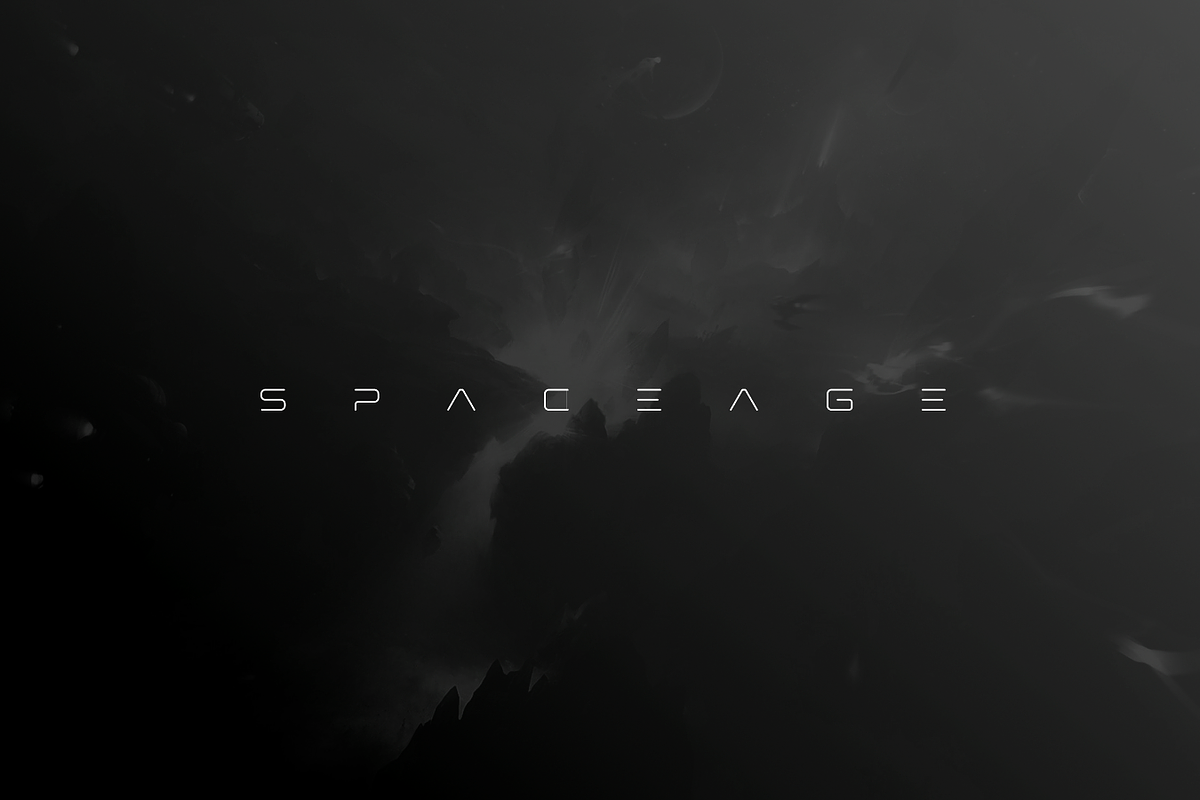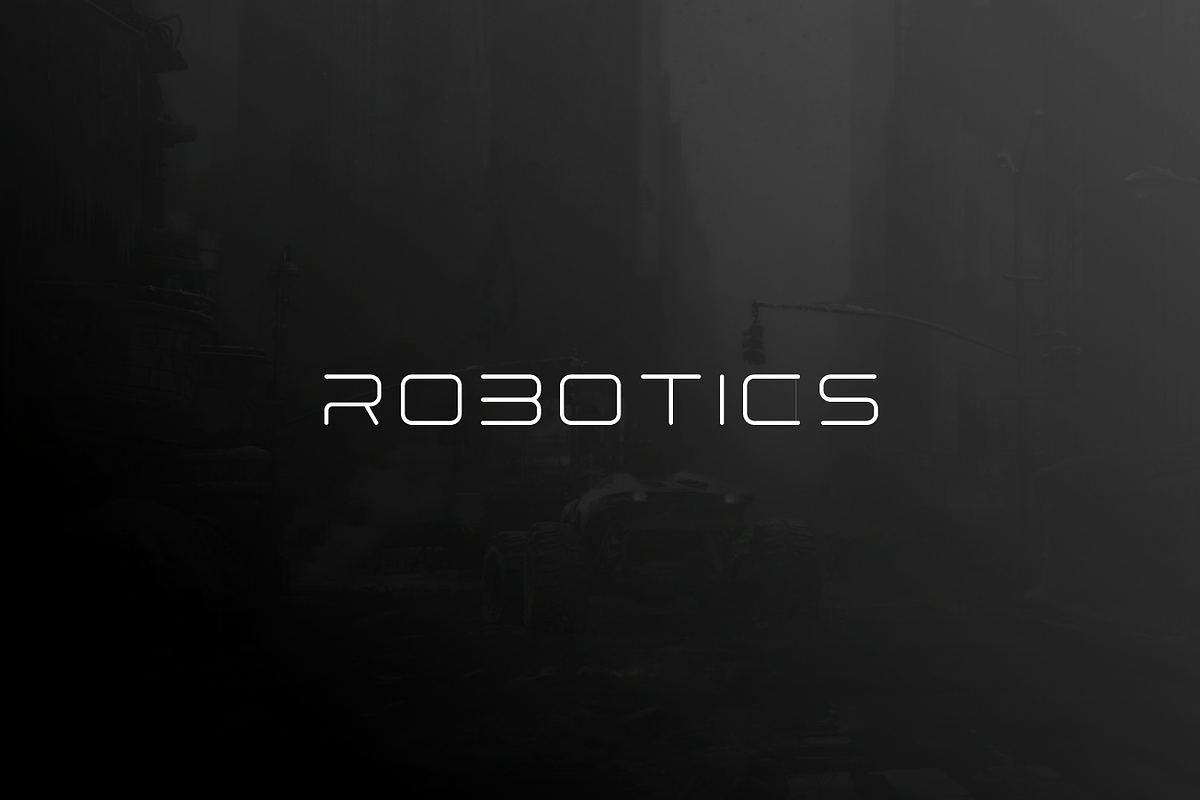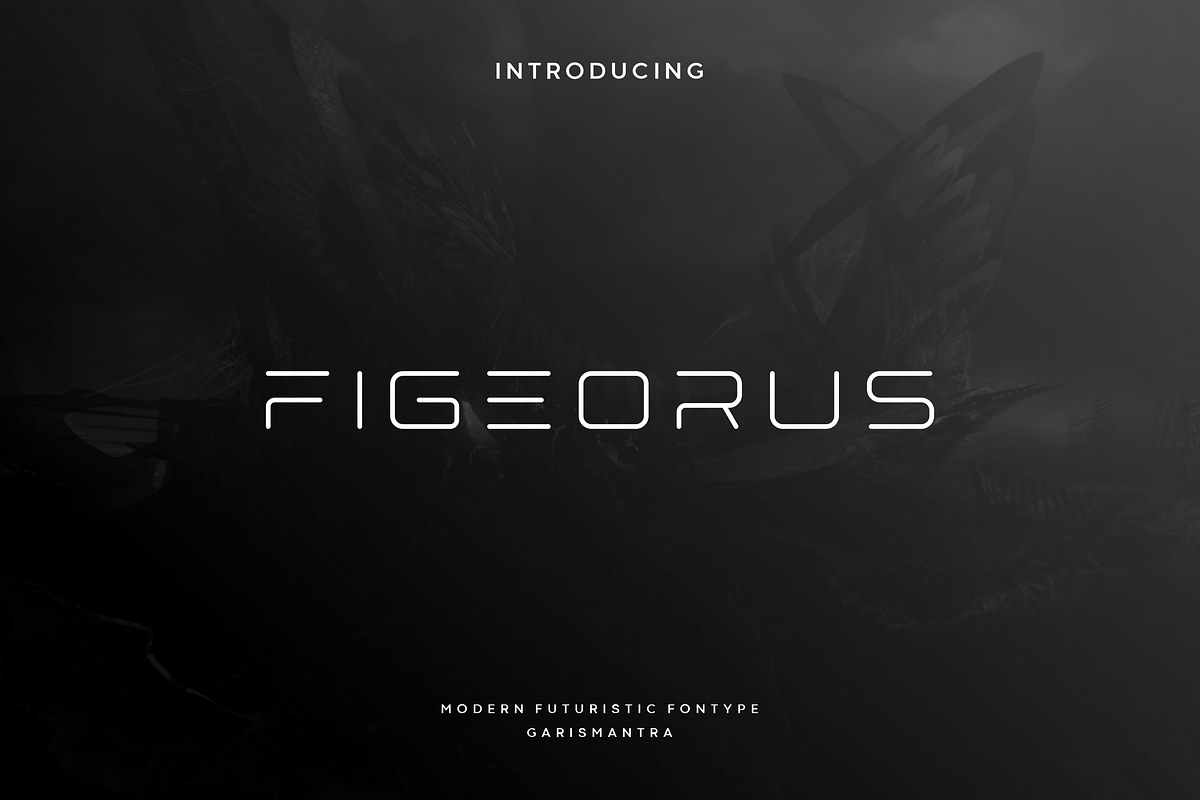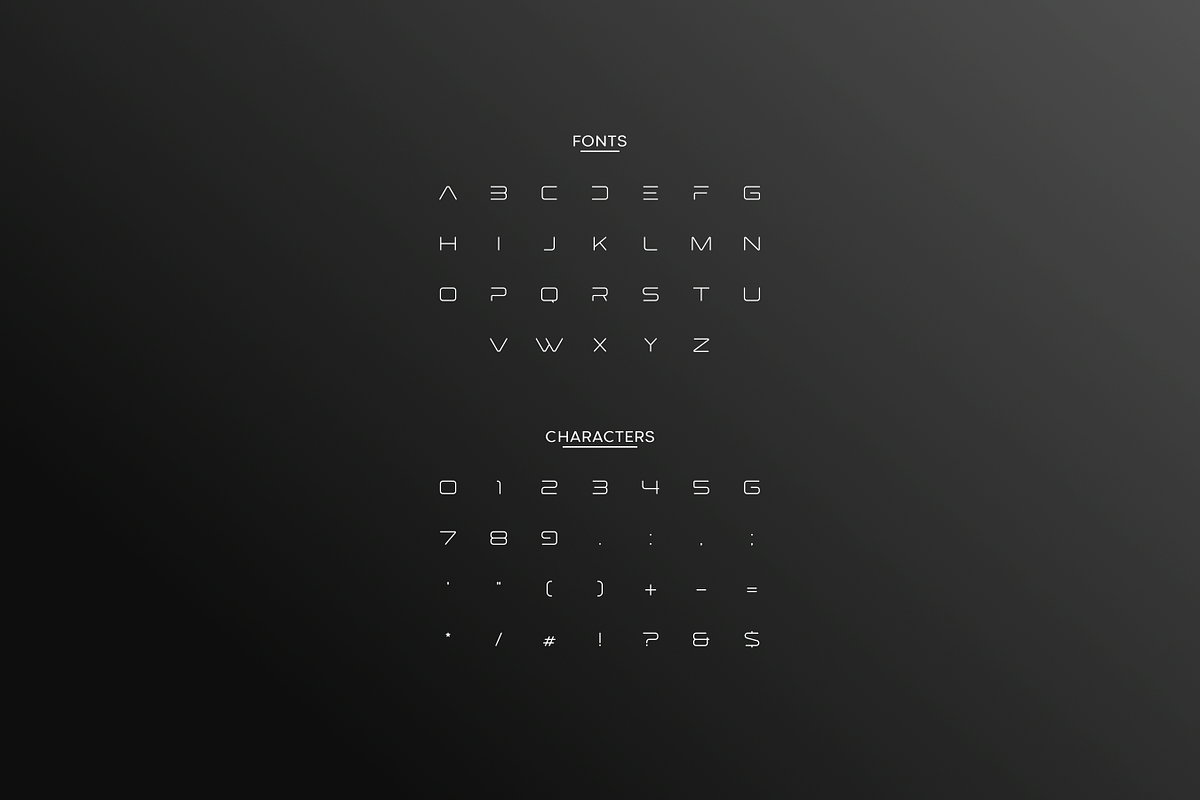
Figeorus
Figeorus is a modern and futuristic font, with a more thin and contemporary version. This fonts would be ideal for writing web designs or about anything else that requires a unique touch. With a sophisticated concept and very elegant shape that will look modern on future technology designs, don't hesitate to have this font.